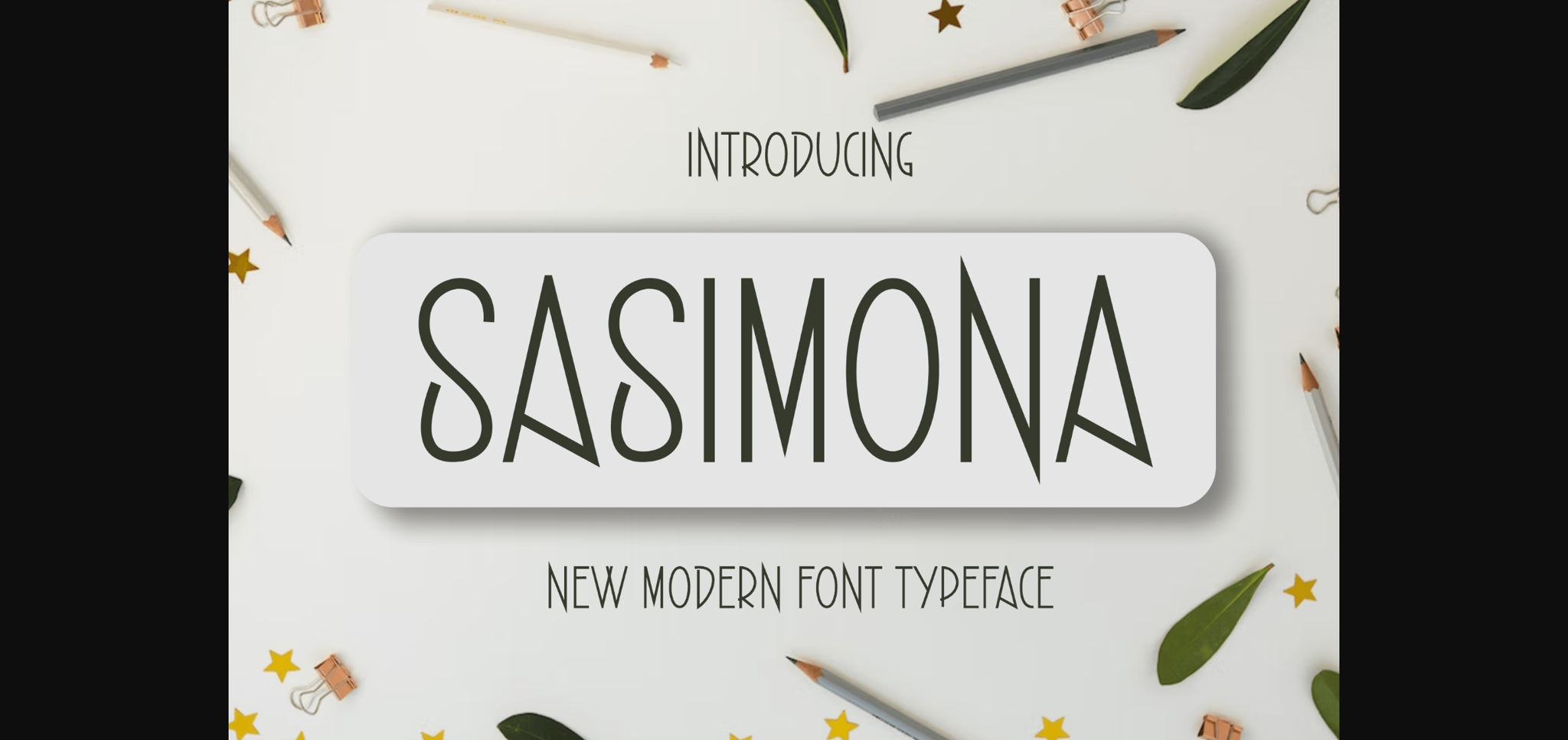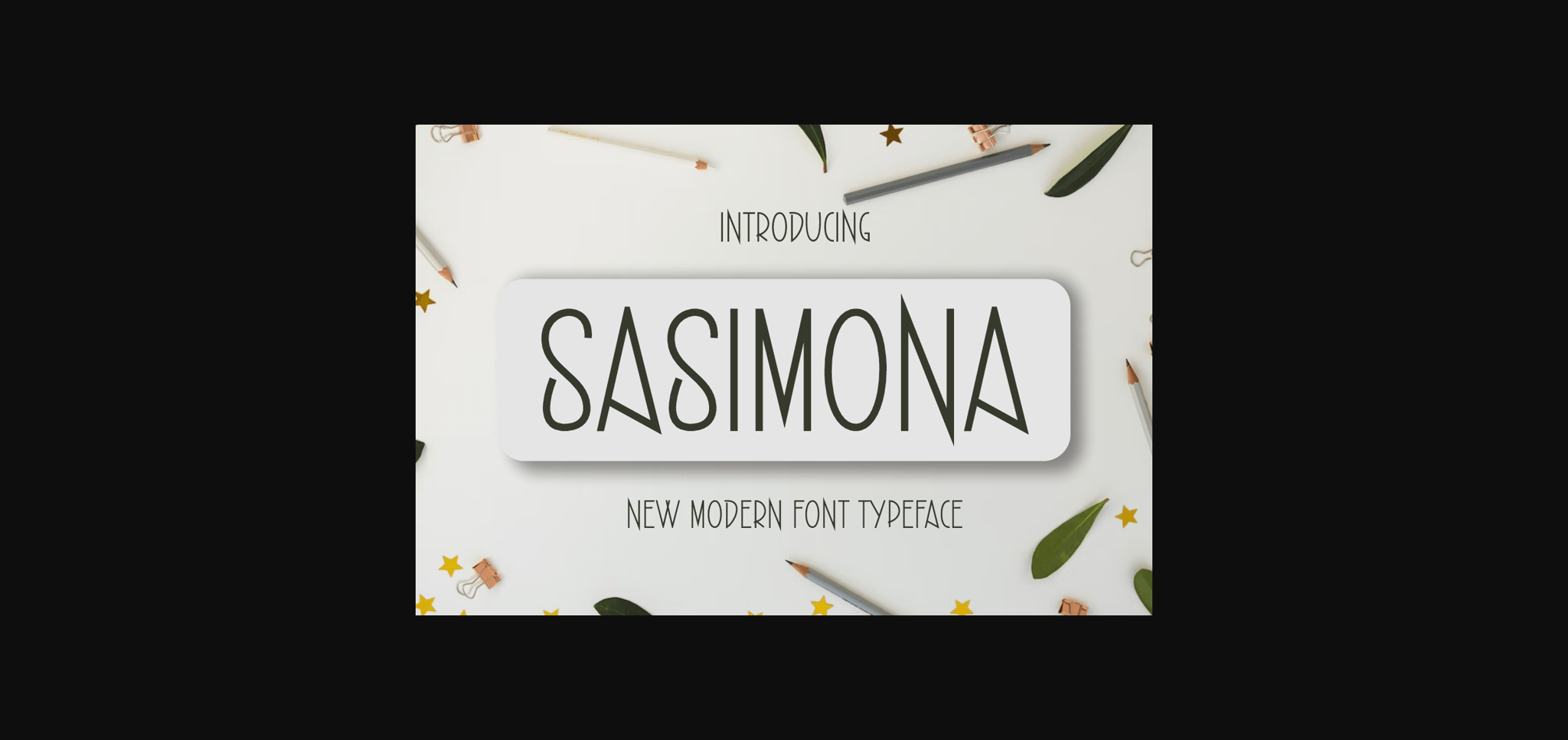
About Sasimona Font
Sasimona is a thin and charming sans-serif font that feels beautiful, classy, elegant, and modern. This font is perfectly suited for a wide variety of projects, such as signature, stationery, logo, wedding, typography quotes, magazine or book covers, website headers, clothing, branding, packaging design, and more.